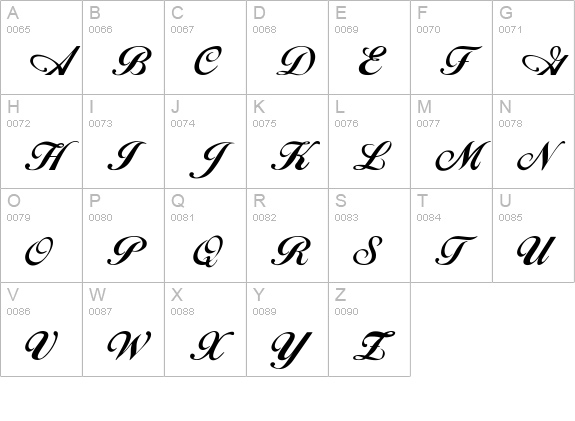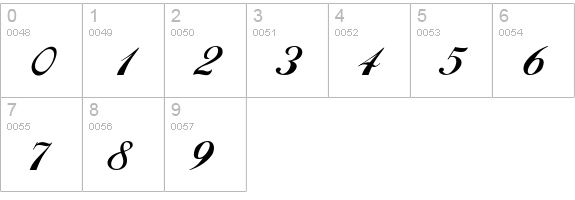
Alison Font Details
Alison font is a stunning and elegant typeface that exudes sophistication and charm. With its graceful curves and exquisite details, Alison font is perfect for adding a touch of elegance to any design project. Whether you're creating wedding invitations, branding materials, or social media graphics, Alison font will make your text stand out with its timeless beauty. The best part? Alison font is completely free to download at FontsMarket.com. Now you can add a touch of class to your designs without breaking the bank. Don't miss out on this incredible opportunity to elevate your projects with the beauty of Alison font. Download it today and let your creativity soar.